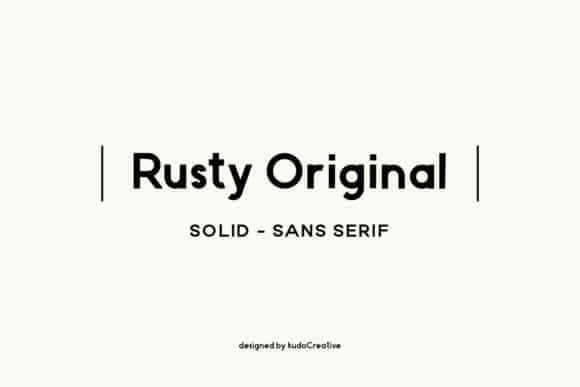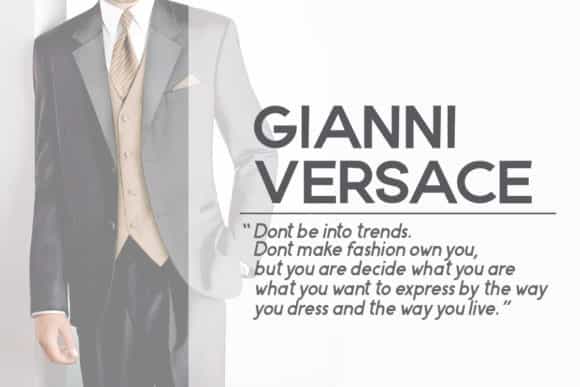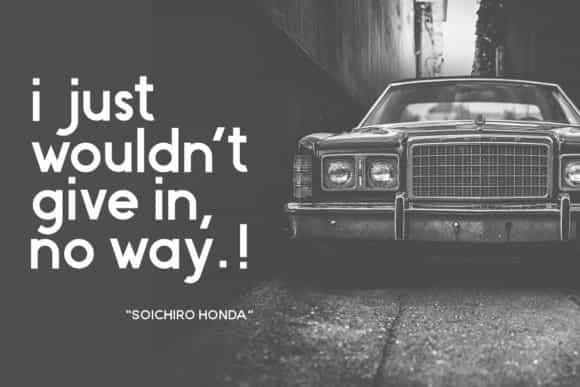
Rusty is a typeface that was designed with high precision which is why it has a very structured and modern look. Moreover, this typeface has several stylistic alternates that are inspired by different characters from a script typeface and the person who made these alternatives is a bit eccentric but still they fit perfectly with the design of this whole typeface.